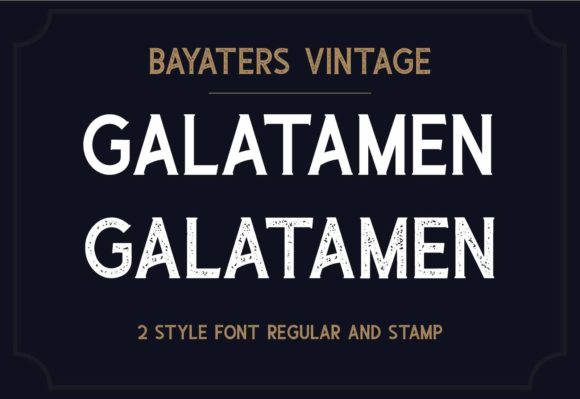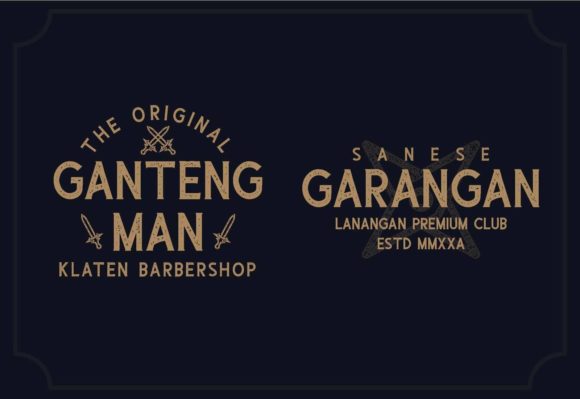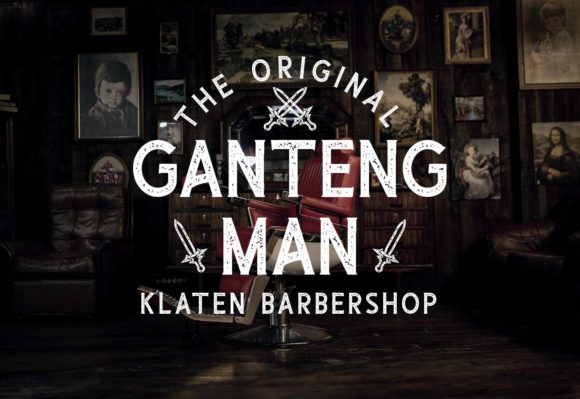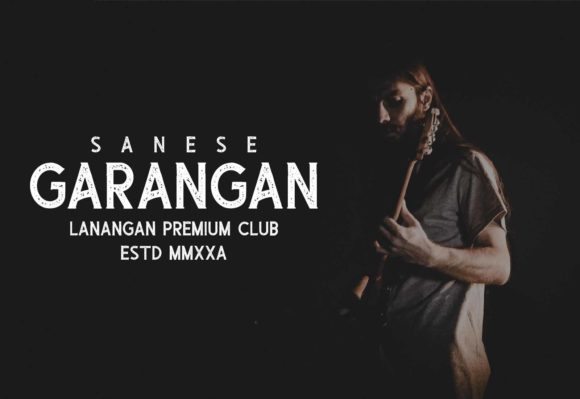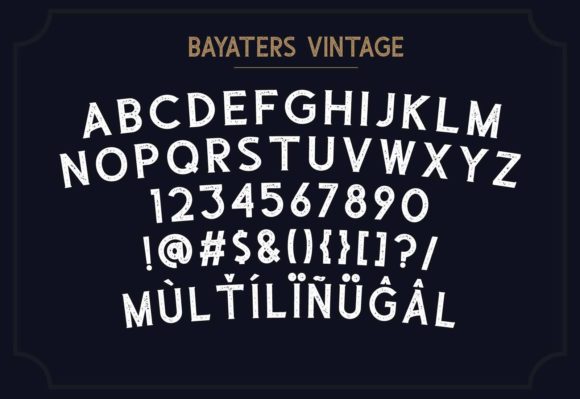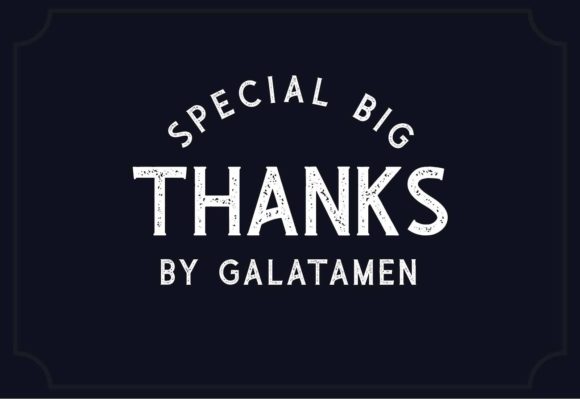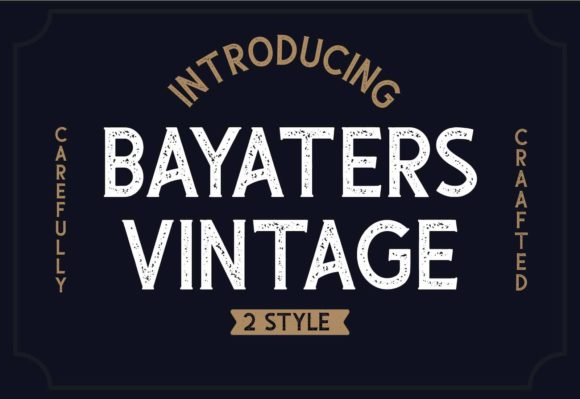
Introducing Bayaters Font: Elevate Your Designs with a Timeless Vintage Style
In the world of design, fonts play a crucial role in conveying messages, evoking emotions, and setting the tone for a brand or project. For designers and crafters looking to make a statement, Bayaters Font is an excellent choice. This simple, vintage-styled, bold display font is designed to make your creations stand out from the crowd with its strong visual effect.
What Makes Bayaters Font Special?
Bayaters Font is not just another font; it’s a design element that can instantly elevate your projects. Here are a few reasons why Bayaters Font should be your go-to choice:
- Simplicity and Boldness: Bayaters Font strikes the perfect balance between simplicity and boldness. Its clean lines and vintage style ensure that your message is conveyed clearly and effectively, making it perfect for headings, titles, and display texts.
- Vintage Aesthetic: The font’s vintage style gives it a unique charm that can add a touch of nostalgia and sophistication to your designs. Whether you’re working on a branding project, a craft, or a digital design, Bayaters Font can help you achieve a distinctive look.
- Versatility: Despite its bold appearance, Bayaters Font is surprisingly versatile. It can be used across various design projects, from posters and flyers to digital banners and social media graphics.
- Legibility: One of the key features of Bayaters Font is its legibility. Even at larger sizes, the font remains clear and easy to read, ensuring that your message is always communicated effectively.
Who Can Benefit from Bayaters Font?
Bayaters Font is a valuable resource for a wide range of designers and crafters, including:
- Graphic Designers: Looking for a font that can make their designs pop, Bayaters Font is an excellent choice for creating stunning visual content.
- Digital Artists: For those working on digital art, Bayaters Font can add a unique text element that complements their artwork.
- Crafters: Whether you’re creating handmade cards, scrapbooking, or working on any craft project that involves text, Bayaters Font can add a professional touch.
- Marketers and Entrepreneurs: For those looking to create engaging content for their brands, Bayaters Font can help in creating eye-catching titles and headings.
How to Use Bayaters Font Effectively
To make the most out of Bayaters Font, consider the following tips:
- Pair with Complementary Fonts: For body text, pair Bayaters Font with simpler, sans-serif fonts to maintain contrast and ensure readability.
- Experiment with Colors: Bayaters Font looks great in bold colors. Experiment with different colors to find the one that best suits your design.
- Adjust Size and Weight: Don’t be afraid to play around with the size and weight of Bayaters Font to create visual hierarchy in your designs.
Bayaters Font is more than just a font; it’s a design tool that can transform your creations. Its simple yet bold vintage style makes it an excellent choice for designers and crafters looking to add a touch of sophistication and nostalgia to their projects. Whether you’re working on a professional design or a personal craft, Bayaters Font is sure to make your work more appealing and stand out from the rest.